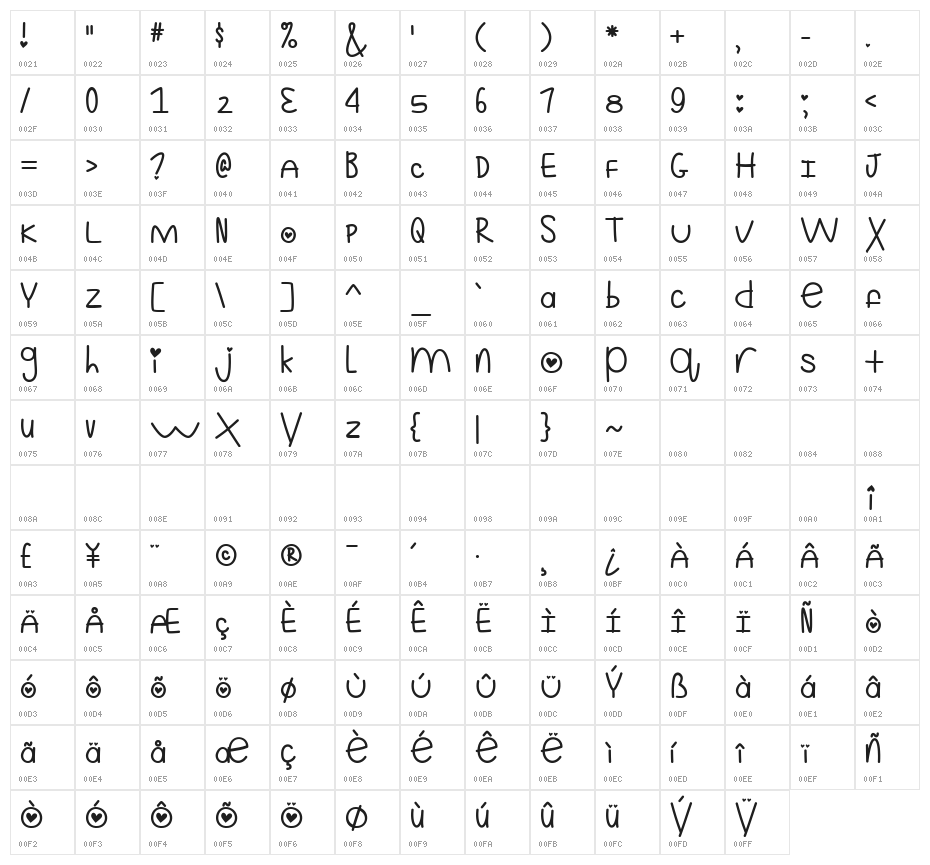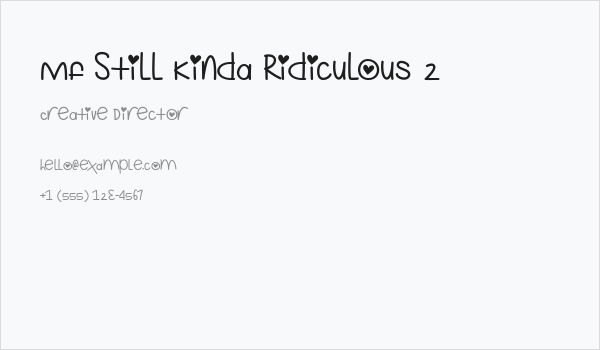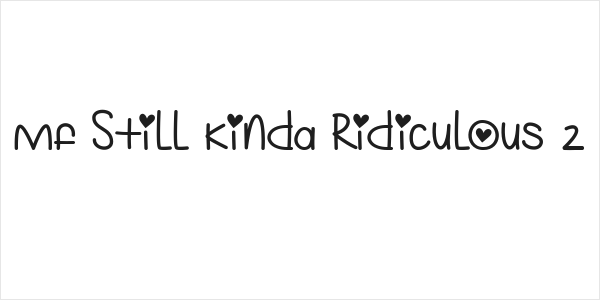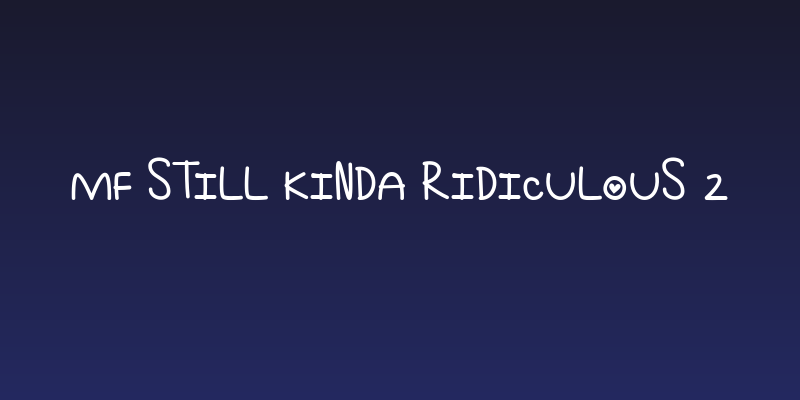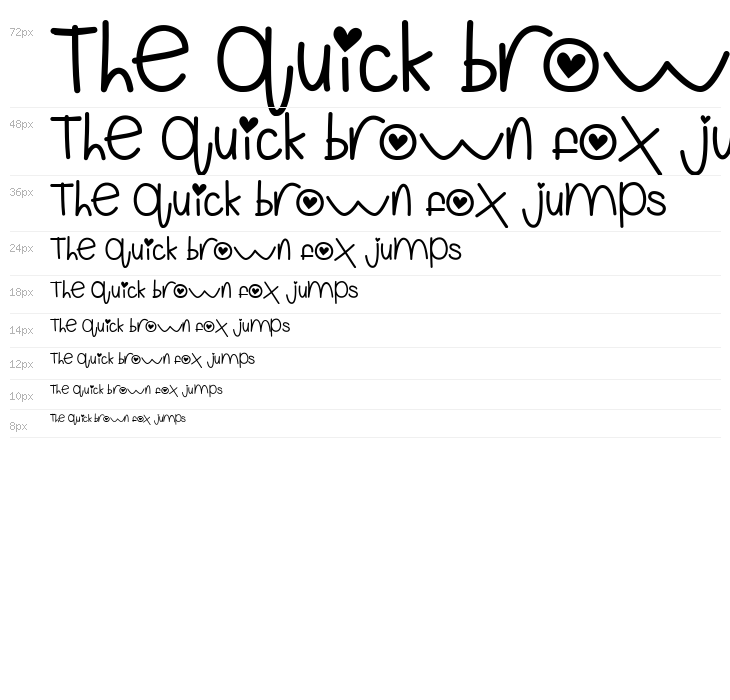
Mf Still Kinda Ridiculous 2 Font
Mf Still Kinda Ridiculous 2 Description
This playful and whimsical font features a unique handwritten style with quirky elements. The uppercase and lowercase letters are characterized by their rounded, bubbly forms, and some letters incorporate heart shapes, adding a touch of charm and fun. The numbers maintain the same playful aesthetic, with a slightly exaggerated and curvy design. Special characters are creatively styled, with some incorporating hearts and other playful motifs. This font exudes a sense of joy and creativity, making it ideal for projects that require a lighthearted and informal touch.
Use CaseLogos, Headlines, Invitations
Proposed ProjectsIdeal for children's books, greeting cards, playful branding, and social media graphics.